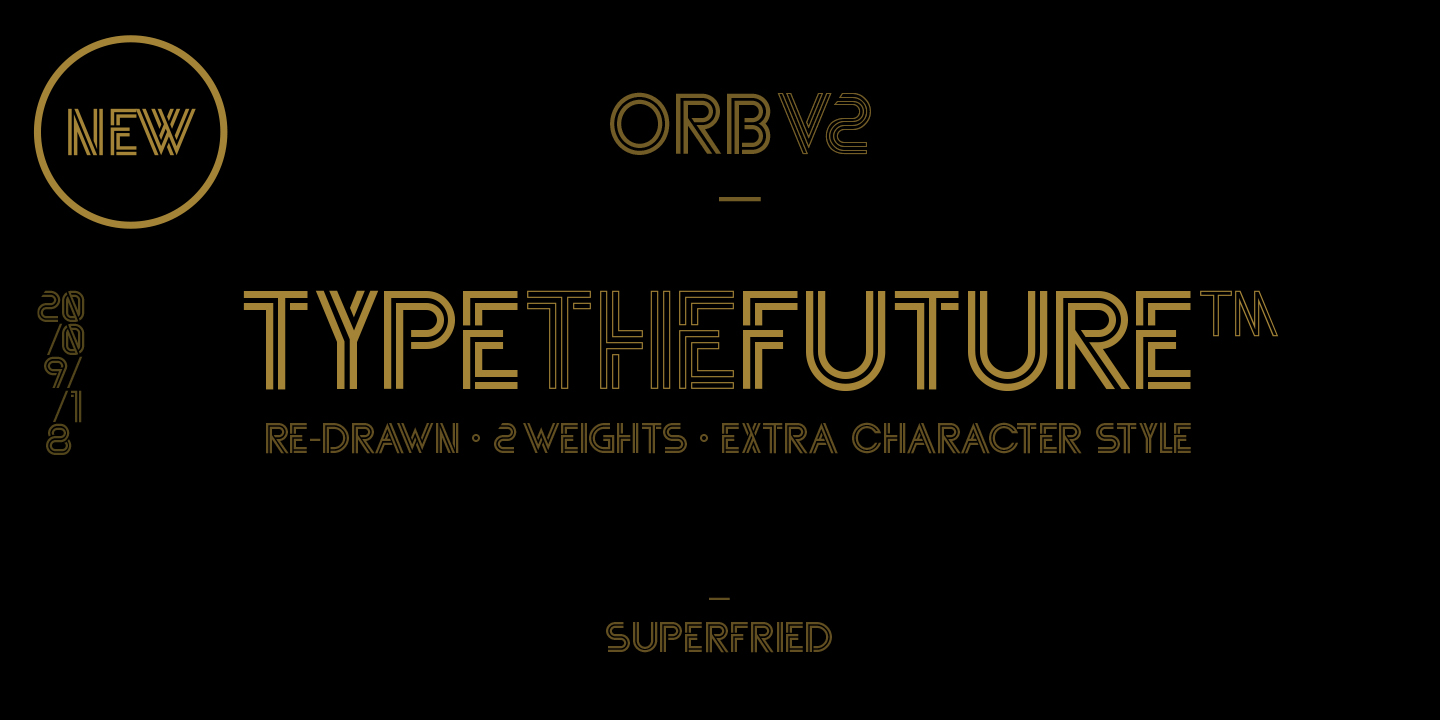
Orb Font is ideal for futuristic tech branding, space exploration campaigns, science fiction movie titles, digital art installations, innovative startup logos, gaming interface design, cosmic-themed merchandise, modern astronomy presentations, virtual reality applications, and cutting-edge projects that require a sleek, otherworldly aesthetic with contemporary appeal.
What makes Orb Font so exciting is its mesmerizing circular design philosophy that creates perfect harmony between geometric precision and organic flow. This typeface captures the essence of celestial bodies and digital innovation, featuring rounded letterforms that suggest both cosmic infinity and technological advancement. Its smooth curves and balanced proportions create a sense of movement and energy that feels both timeless and futuristic.
Orb Font family includes comprehensive stylistic variations: Regular, Bold, Light, Thin, Medium, Black, Italic, Outline, Glow, and Gradient versions. Each style maintains the font's distinctive spherical character while offering different levels of visual impact, providing designers with versatile tools for creating cohesive branding that spans from subtle elegance to bold statements.
The innovative design of Orb Font Free Download makes it exceptionally suitable for forward-thinking brands and projects. This font successfully communicates innovation and reliability while maintaining approachable readability across all applications. Its universal appeal works beautifully in both digital environments and print materials, while its distinctive circular motifs create memorable brand recognition that resonates with audiences seeking cutting-edge design solutions and technological sophistication.